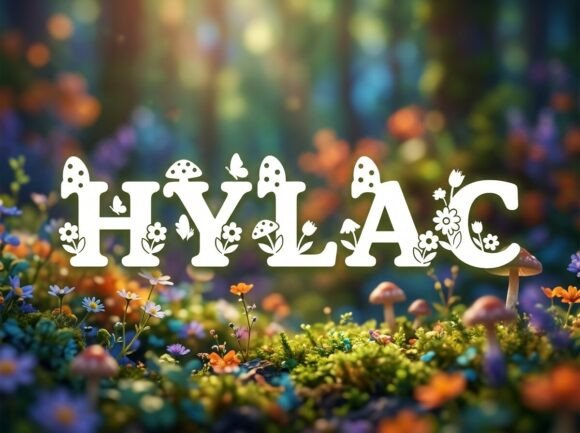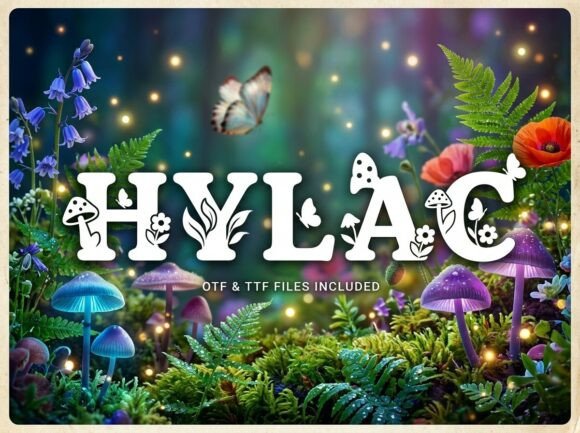
Introduction to Hylac Font
As you sit in front of your computer, staring at a blank screen, and waiting for that spark of creativity to hit, you know exactly what it’s like to be searching for the perfect design resource. You’re looking for something that will take your project from ordinary to extraordinary, something that will make your audience stop and take notice. This is where the Hylac Font comes in – a stunning decorative display font designed to be the center of attention.
With its unique artistic elements and strong visual personality, the Hylac Font is perfect for creators who want to break away from the ordinary. Whether you’re working on a creative project, designing a logo, or crafting packaging, this font is versatile enough to meet your needs while maintaining a professional and polished finish.
What sets the Hylac Font apart is its high quality design, making it an invaluable asset for designers who want to elevate their work. And the best part? It’s now available for you to download and start using in your next project.
Key Features of Hylac Font
- Designed with a modern and sleek appearance, making it suitable for a wide range of creative projects.
Honest Review: Hylac Font
As a designer, I’m always on the lookout for high-quality design resources that can elevate my creative projects. Recently, I had the chance to try out the Hylac Font, and I must say it’s a game-changer.
- ✨ Wide range of styles: The Hylac Font comes in a variety of styles, from modern to traditional, making it perfect for a wide range of creative projects.
- ✨ High-quality designs: The font designs are clean, crisp, and visually appealing, making it a great addition to any design.
- ✨ Transparent background: The font has a transparent background, making it easy to customize and combine with other design elements.
While the Hylac Font is an excellent design resource, I did encounter a few limitations.
- ⚠️ Limited font sizes: The font sizes are limited, which can make it difficult to use for larger text.
- ⚠️ Not ideal for small text: The font can be difficult to read in small sizes, which can be a problem for designers who need to use it for small text.
Overall, I’m thoroughly impressed with the Hylac Font. Its high-quality designs, wide range of styles, and free download make it an excellent addition to any designer’s toolkit. While it has a few limitations, I believe it’s well worth using for your creative projects.
Tips for Getting the Most Out of Hylac Font
Experiment with different font sizes, colors, and styles to find the perfect look for your design. Use the transparent background to create layered designs and add depth to your creative project. Consider pairing the Hylac Font with other design resources to create a unique and eye-catching design.
The Hylac Font is suitable for a wide range of creative projects, including business cards, brochures, posters, and social media graphics. Its high quality and transparent background make it an ideal choice for designers who want to create professional-looking designs without the hassle of complicated design software.